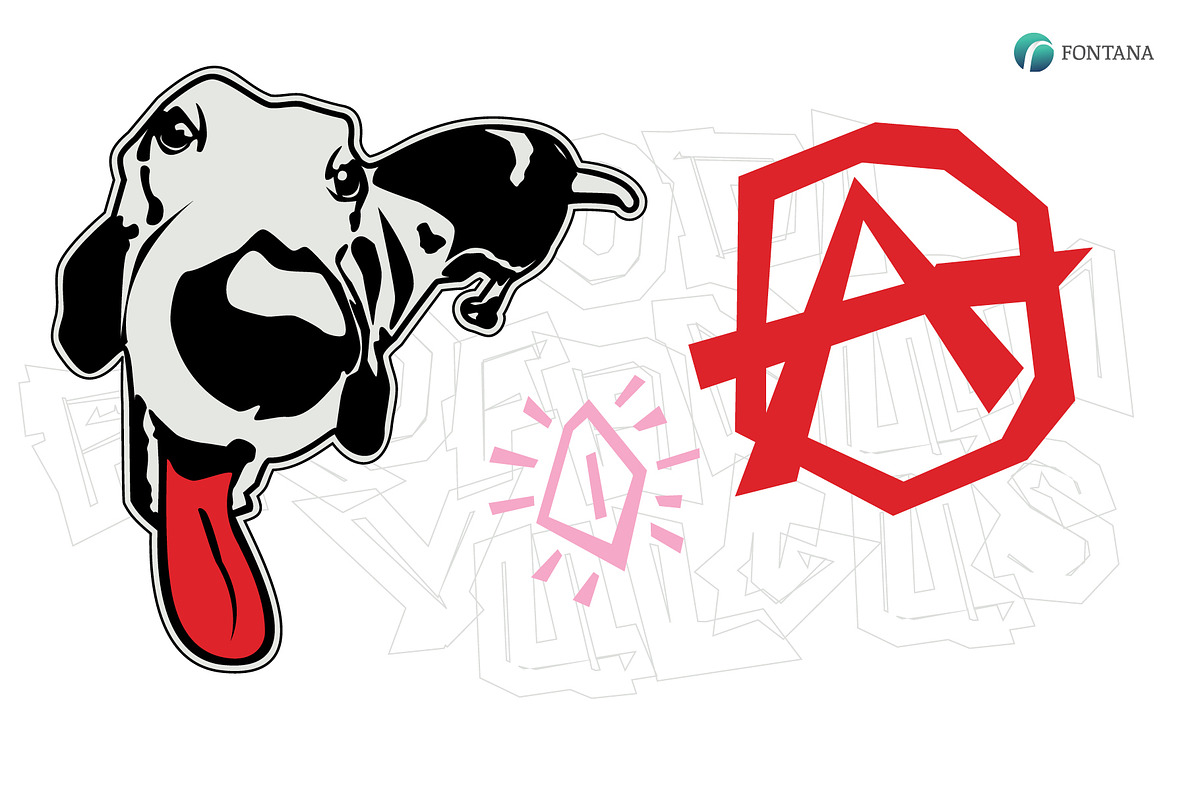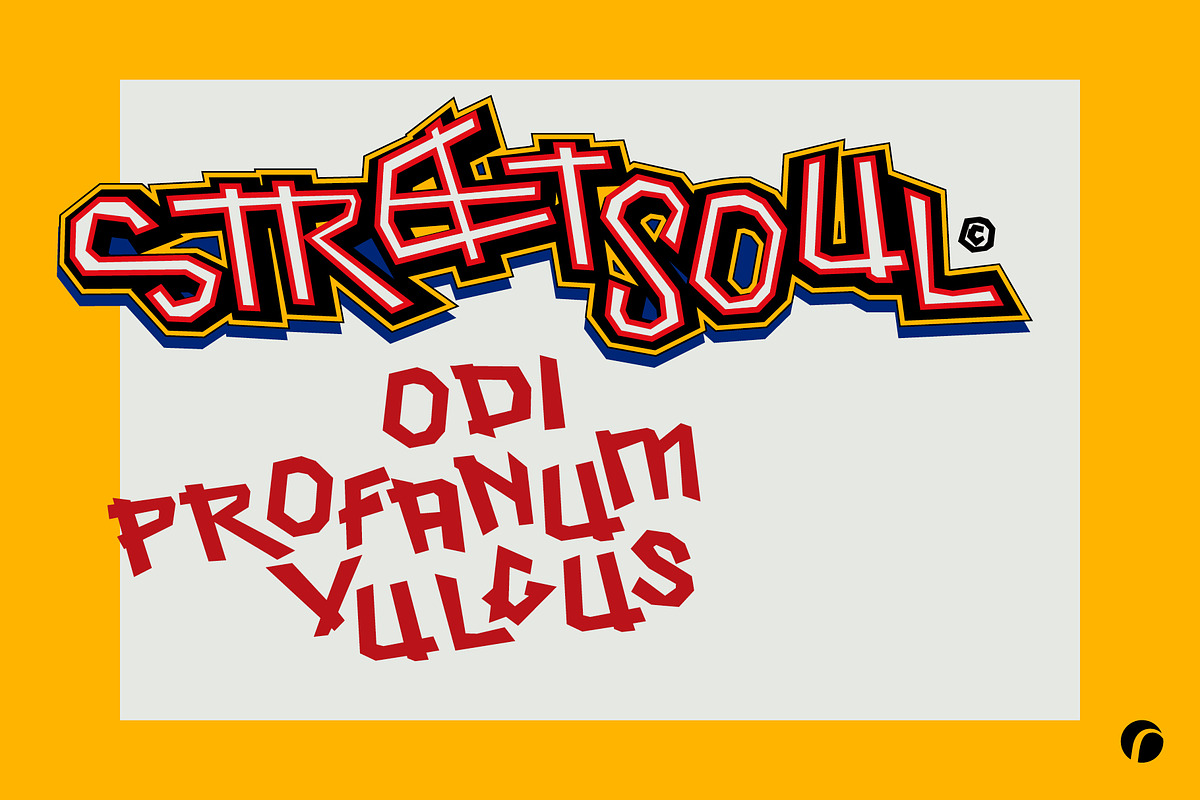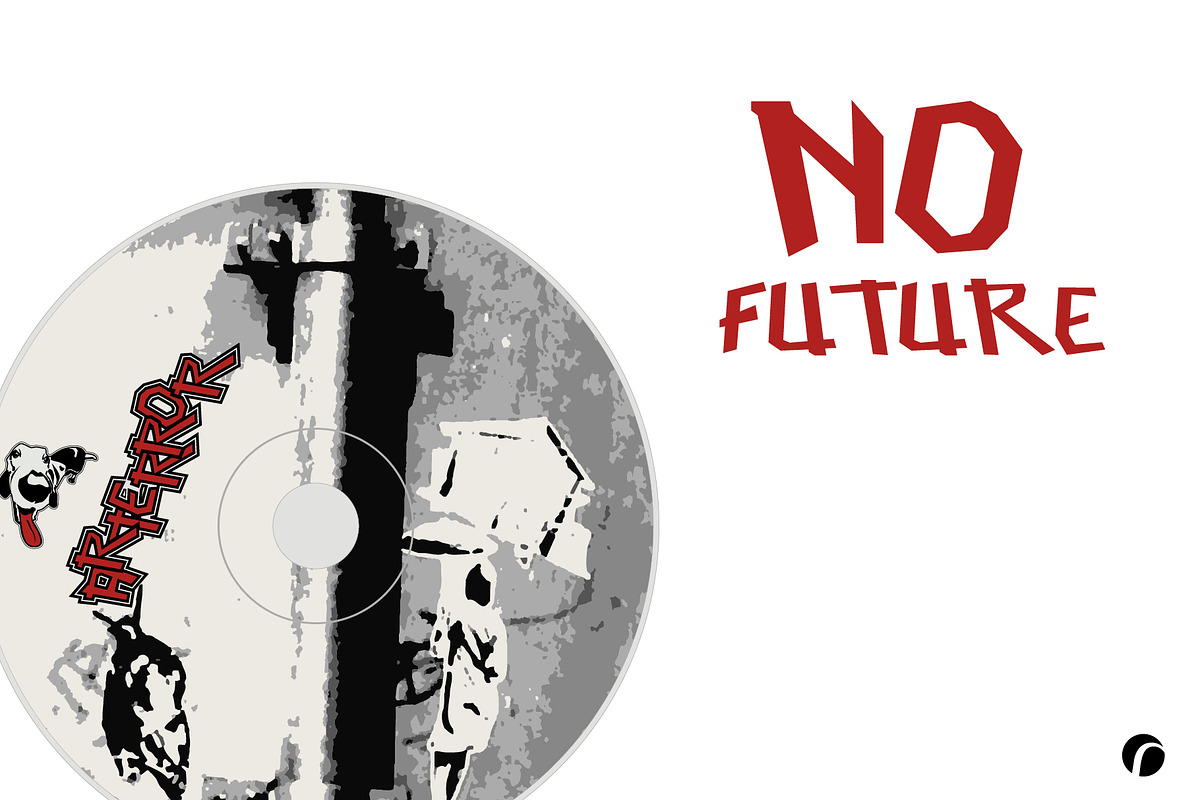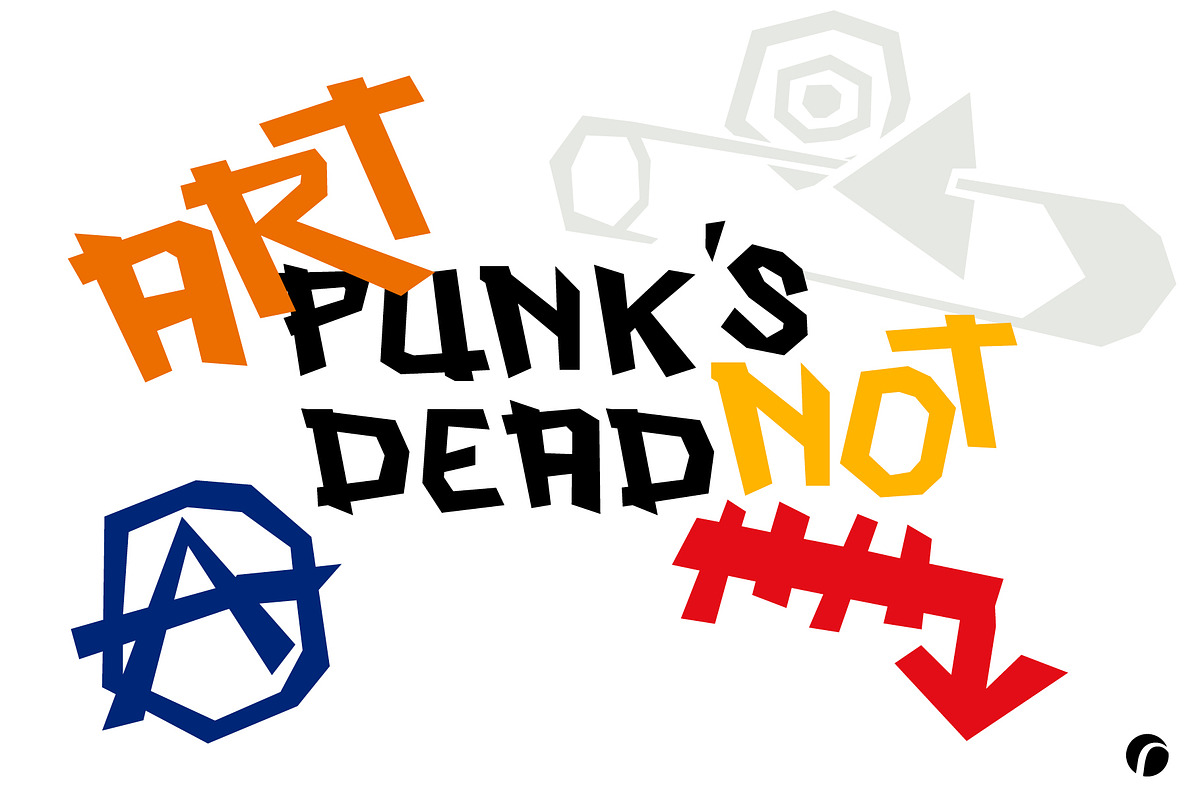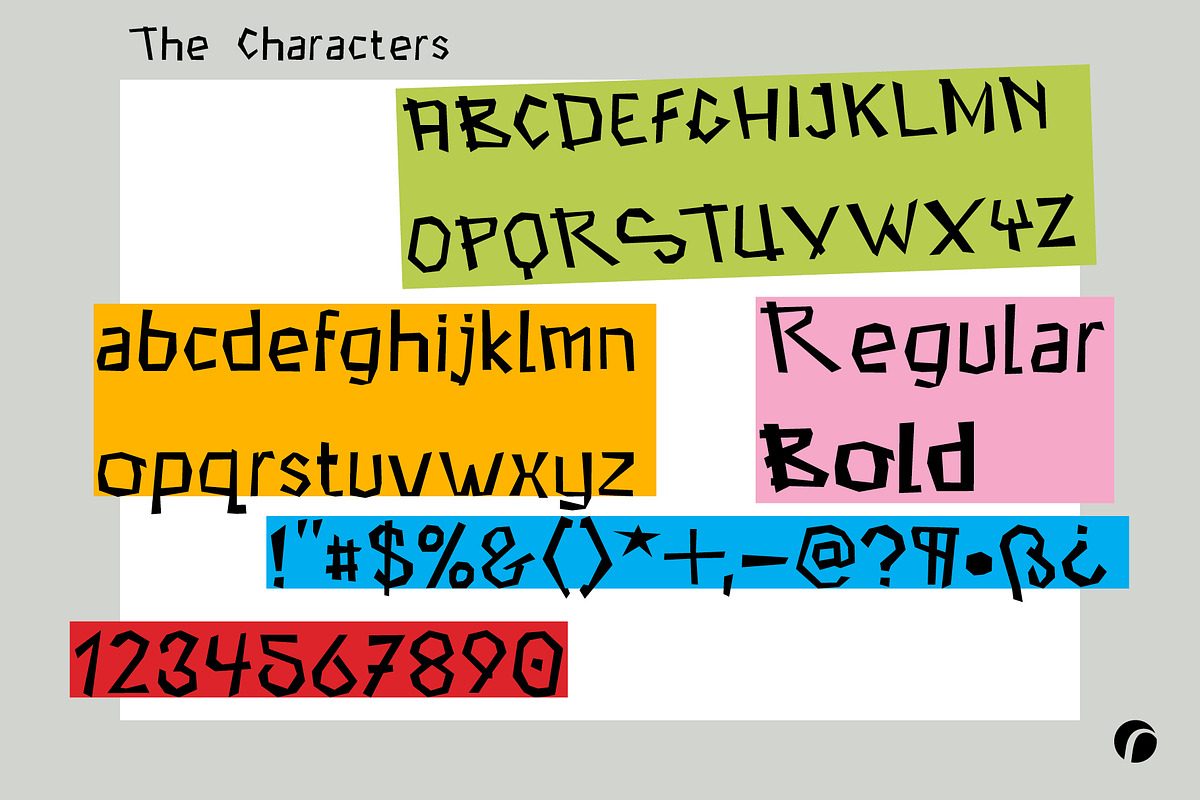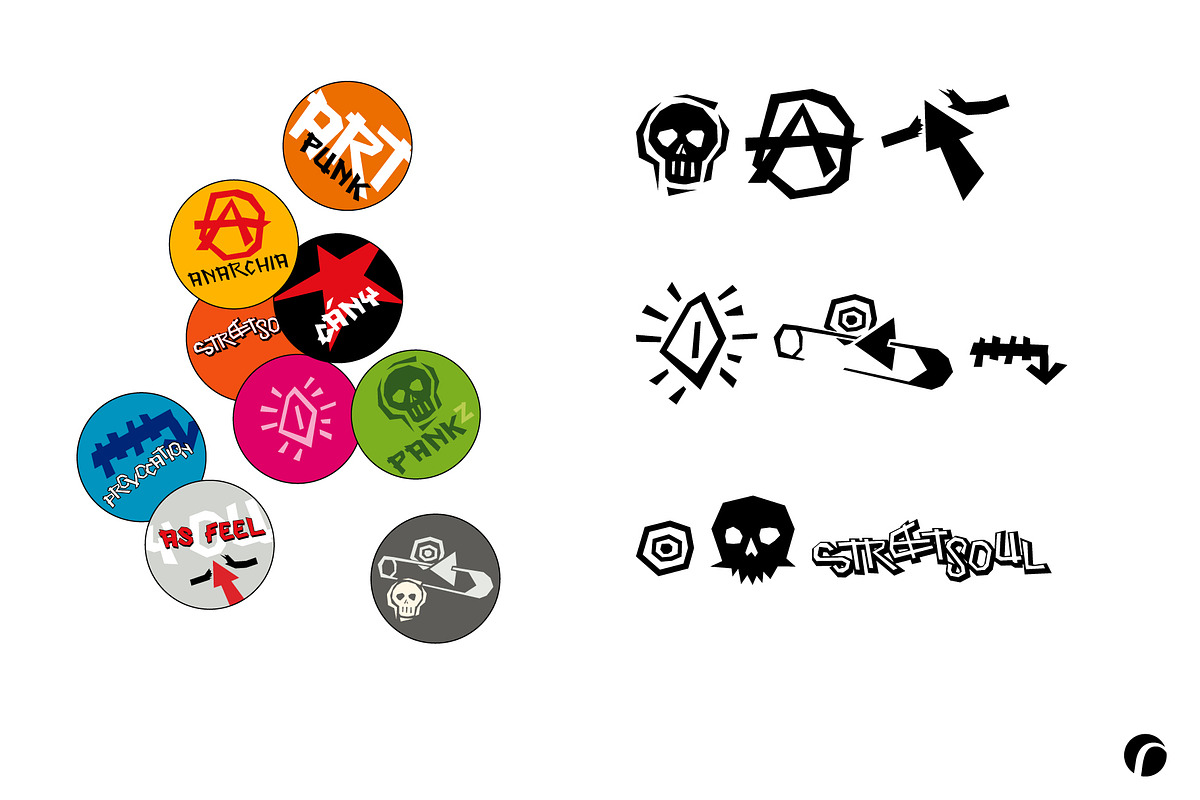
StreetSoul (punk typeface)
StreetSoul (punk typeface) by Fontanatype is a font selected for branding, posters, packaging, typography.
- Streetsoul Regular
- Streetsoul Bold
Why StreetSoul (punk typeface) is worth a look
StreetSoul (punk typeface) by Fontanatype fits naturally into Branding, posters, packaging, typography.